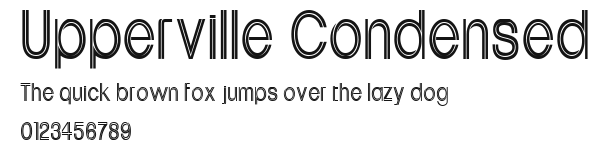
Upperville Condensed Preview
• Font Name: Upperville Condensed
• Full Font Name: Upperville Condensed Normal
About Upperville Condensed.ttf
Upperville Condensed.ttf is a modern, elegant sans-serif font designed for ultimate readability and visual harmony. Perfect for branding, headlines, web design, and print materials.